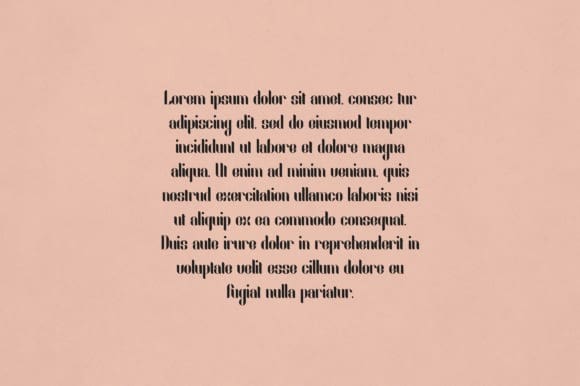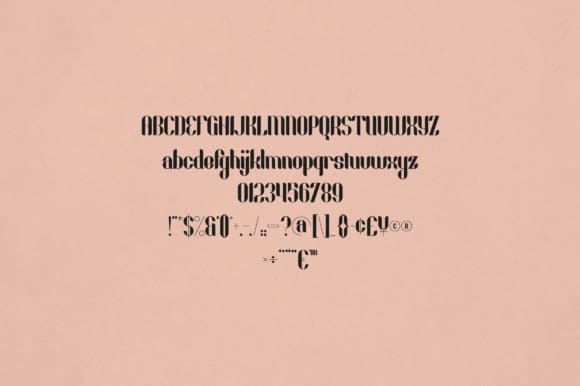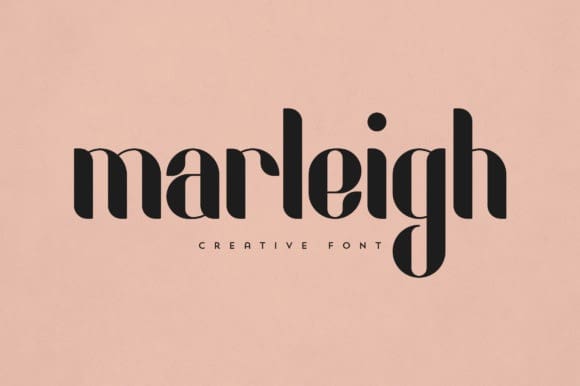
Marleigh Font
Marleigh Font is an elegant and versatile display font that will make your typography truly unique! It will enchant every logo, branding, headline, or plain text!